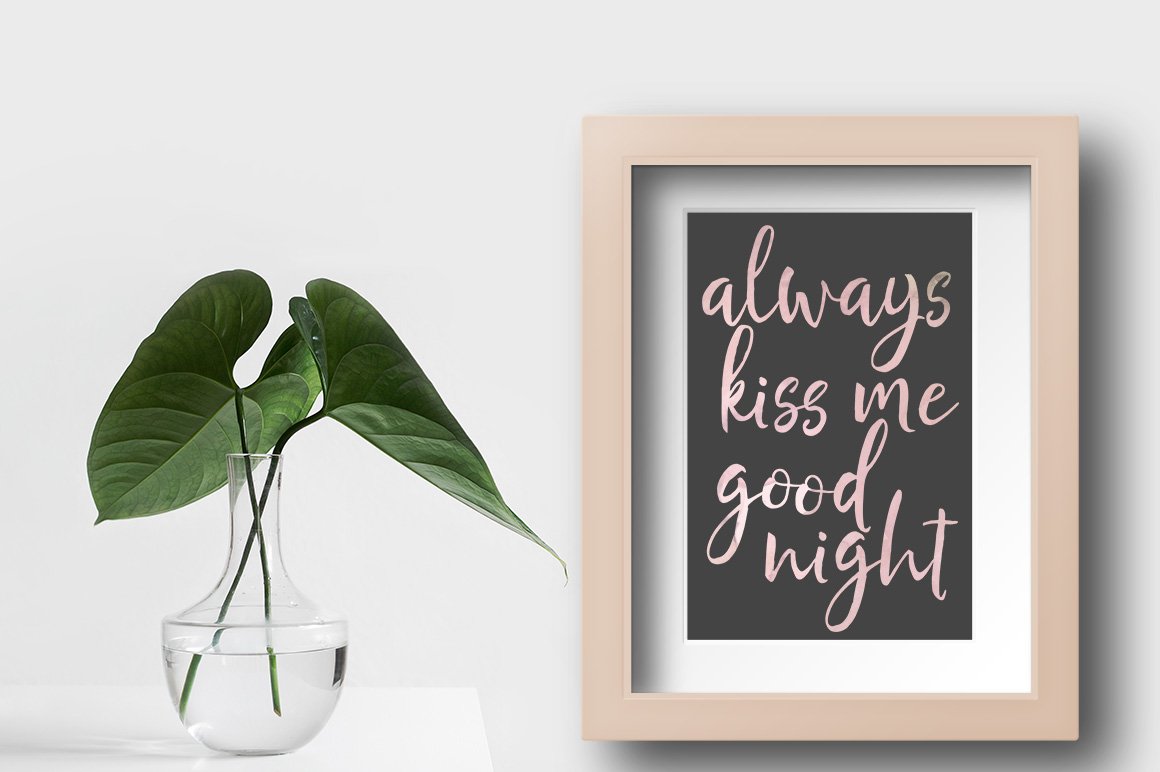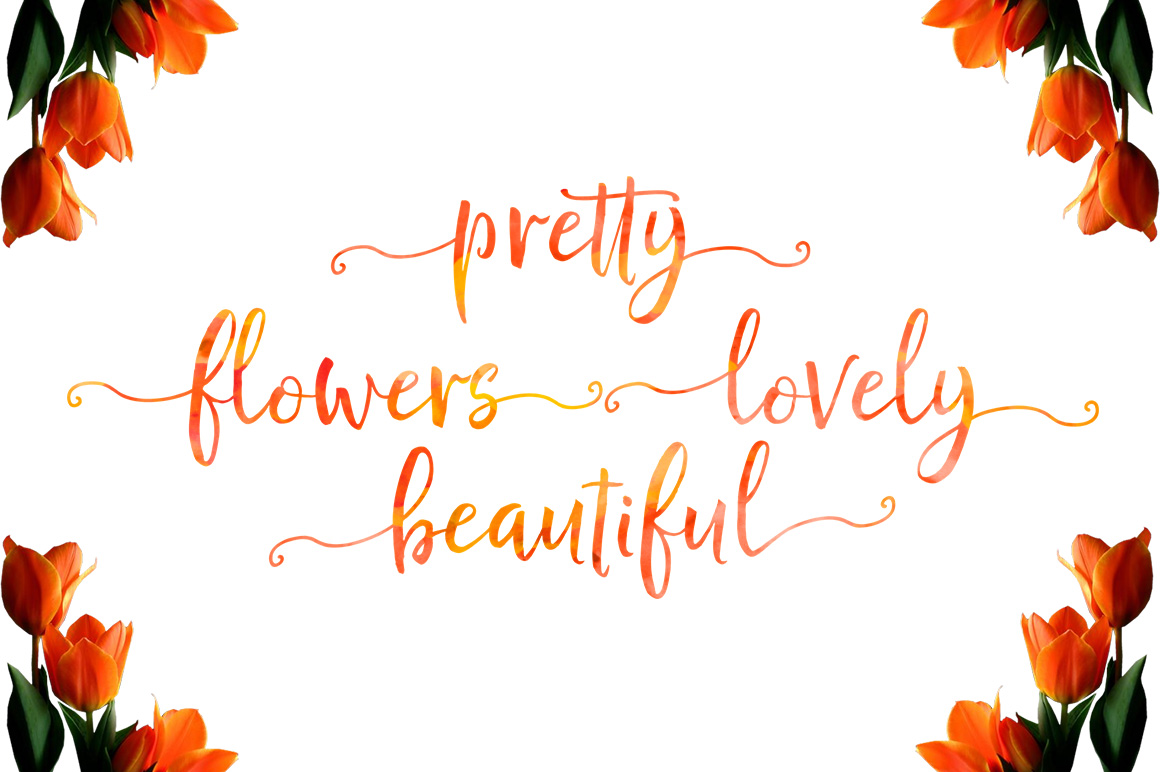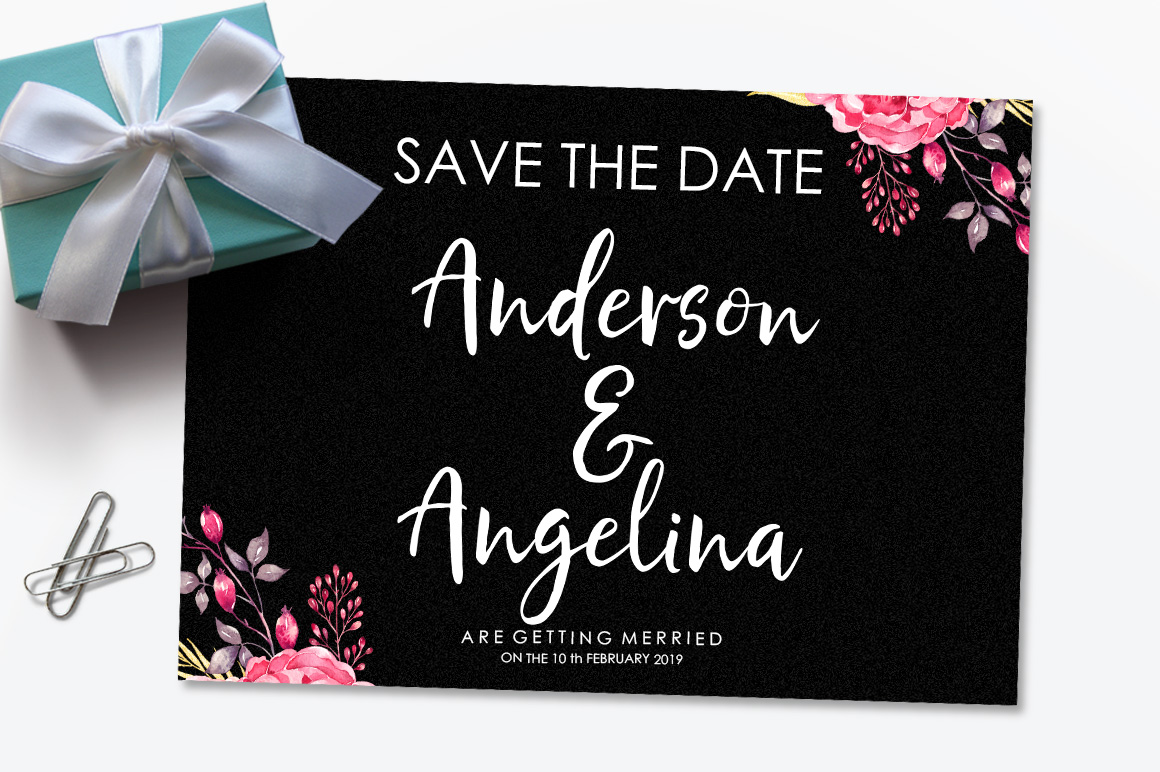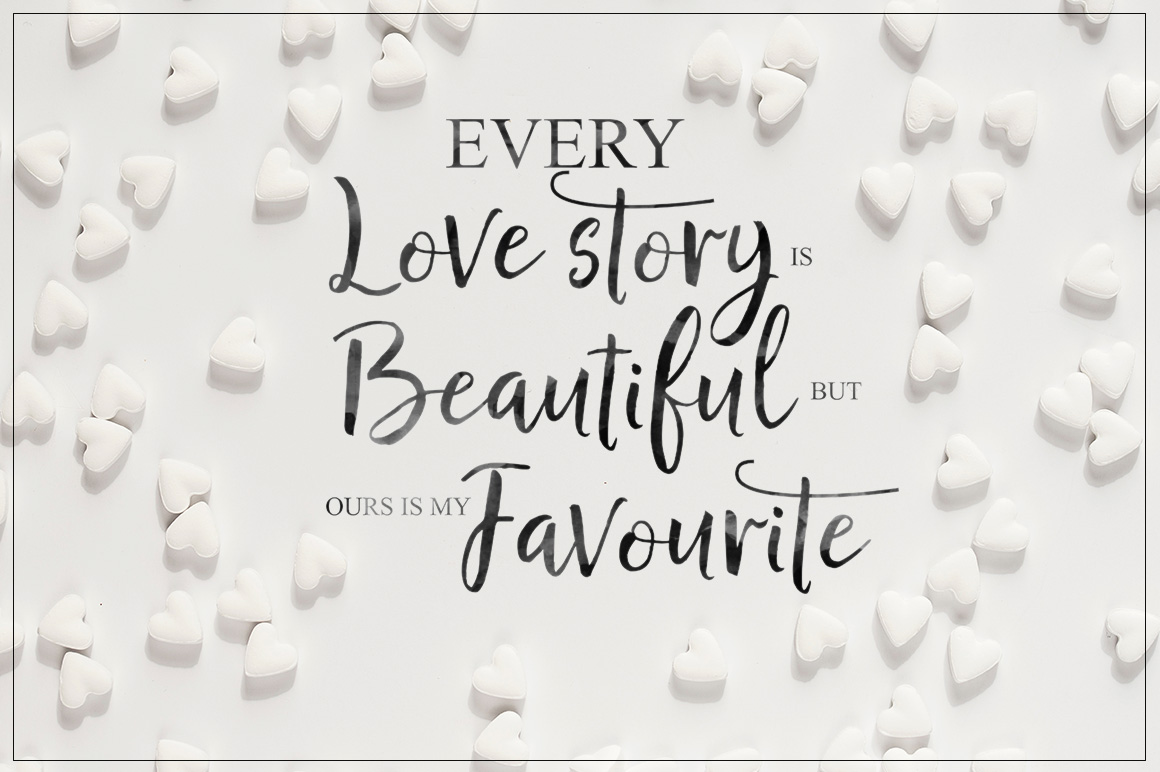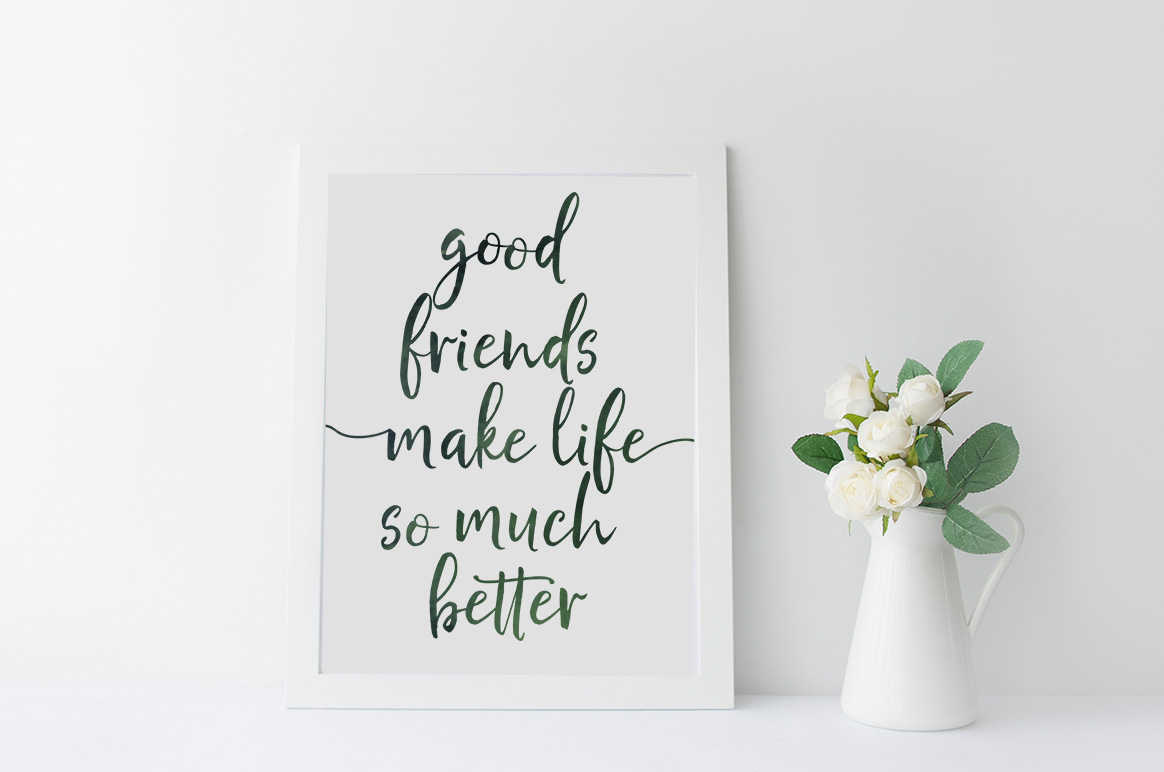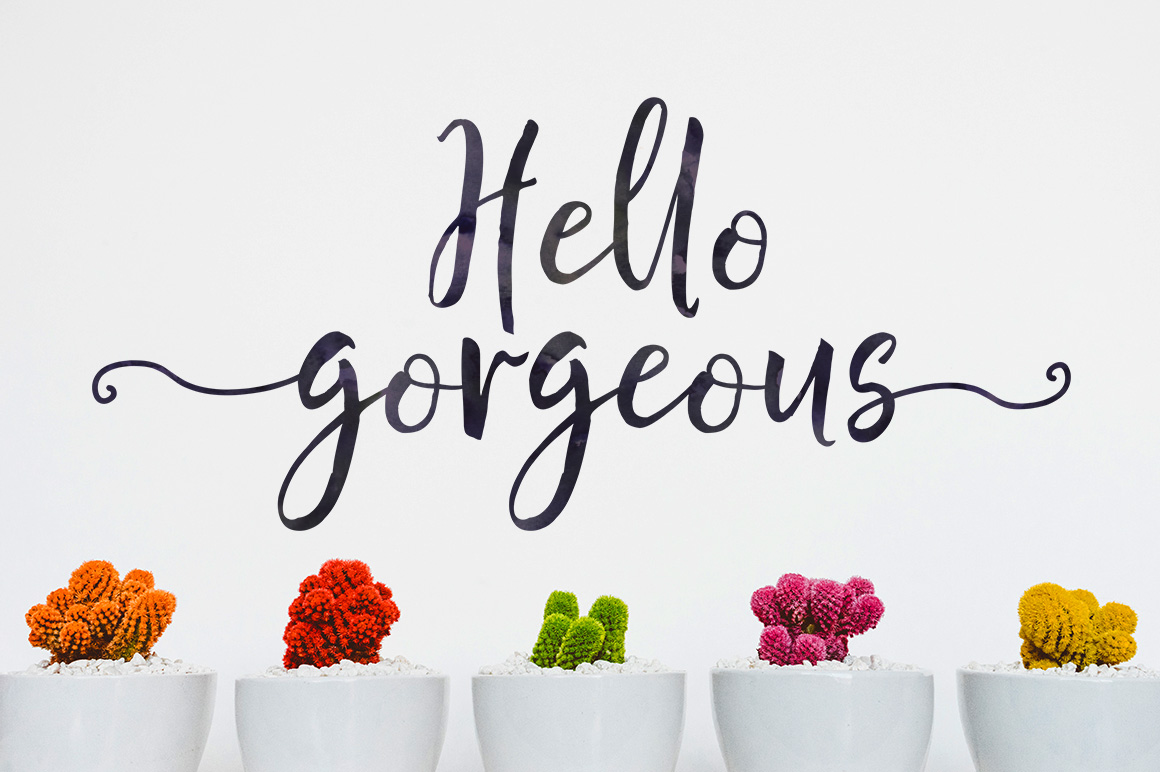
Bronetto Font: Elevate Your Designs with Modern Elegance
In the world of typography, fonts play a crucial role in conveying the tone and personality of a design. Among the numerous fonts available, Bronetto Script stands out as a modern and elegant script that injects a lot of energy into any design or project. In this article, we’ll explore the features, benefits, and uses of Bronetto Font, making it a must-know for designers and crafters.
The Birth of Bronetto Script
Bronetto Script is a contemporary font designed to make a statement. Its creation was inspired by the need for a unique and stylish script that could add a touch of sophistication to various designs. With its modern approach, Bronetto Script has quickly gained popularity among designers and crafters who seek to elevate their work.
Key Features of Bronetto Font
Bronetto Script boasts several key features that make it an excellent choice for designers:
- Modern and Elegant: Bronetto Script exudes a sense of luxury and refinement, making it perfect for high-end designs.
- High Energy: The font’s dynamic and fluid strokes inject a lot of energy into any design, making it ideal for projects that require a bold statement.
- Versatile: Bronetto Script can be used in a wide range of designs, from logos and branding to packaging, posters, and more.
- Readable: Despite its elegant and cursive nature, Bronetto Script remains highly readable, even at smaller font sizes.
Benefits of Using Bronetto Font
The benefits of using Bronetto Script in your designs are numerous:
- Enhance Your Brand: Add a touch of sophistication and elegance to your brand’s visual identity with Bronetto Script.
- Stand Out: With its unique and modern style, Bronetto Script helps your design stand out from the crowd.
- Flexibility: Use Bronetto Script across various design materials, from business cards to billboards.
- Easy to Pair: Bronetto Script pairs well with a variety of fonts, making it easy to find the perfect combination for your design.
Using Bronetto Font in Your Designs
Bronetto Script can be used in a multitude of design applications:
- Logos and Branding: Create a lasting impression with a custom logo featuring Bronetto Script.
- Packaging Design: Add a touch of luxury to your product packaging with Bronetto Script.
- Poster Design: Make a bold statement with Bronetto Script in your poster designs.
- Digital Media: Use Bronetto Script in your digital media, such as social media graphics, email newsletters, and more.
Tips for Getting the Most Out of Bronetto Font
To maximize the impact of Bronetto Script in your designs:
- Experiment with Colors: Pair Bronetto Script with bold and contrasting colors to create a striking design.
- Play with Sizes: Use Bronetto Script in various sizes to create visual hierarchy and emphasis.
- Mix and Match: Combine Bronetto Script with other fonts to create a unique and interesting typography.
Bronetto Script is a modern font that brings a lot of energy and elegance to any design or project. Its versatility, readability, and unique style make it an excellent choice for designers and crafters seeking to elevate their work. By incorporating Bronetto Script into your designs, you’ll be able to create stunning and memorable visuals that leave a lasting impression.
Whether you’re a seasoned designer or a crafty DIY enthusiast, Bronetto Script is definitely worth exploring. So, go ahead and experience the power of Bronetto Font in your designs!